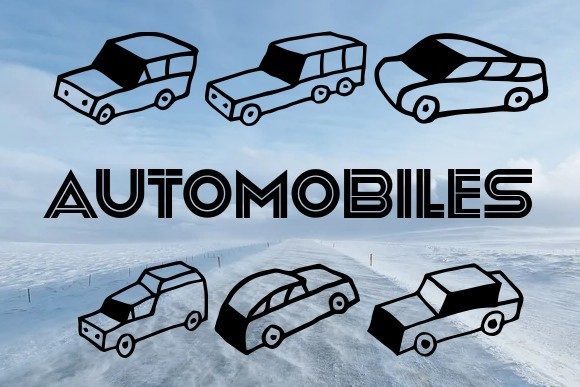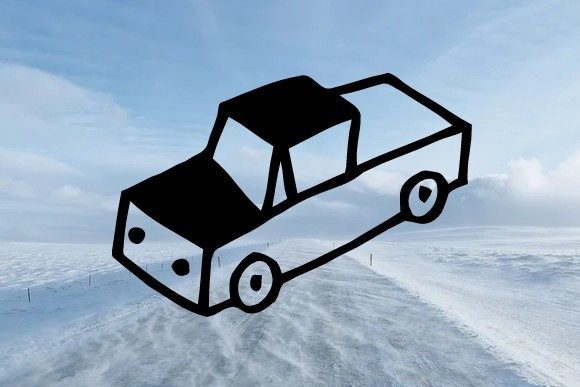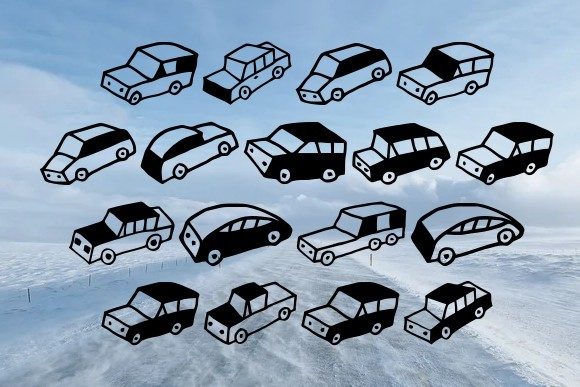
About Automobiles Font
“Automobiles” is a fantastic dingbats font that adds a fun and playful touch to creative projects related to cars, games, toys, or children in general. With its unique collection of glyphs featuring various automobile-related icons, this font is a perfect choice to enhance your designs.
When it comes to car-related projects, “Automobiles” can add a whimsical and decorative element to your designs. Whether you’re creating posters, banners, or advertisements for an automotive event or car dealership, this font allows you to incorporate fun and eye-catching car icons that instantly convey the theme and capture attention. The playful nature of “Automobiles” appeals to both children and car enthusiasts alike.
In the realm of games and toys, “Automobiles” can be a valuable asset. Whether you’re designing board games, card games, or video game graphics, this font offers a wide range of car icons that can be used as game pieces, symbols, or decorative elements. The inclusion of “Automobiles” in your game design adds a visually engaging and thematic element that enhances the overall gaming experience.
For children’s projects, “Automobiles” brings a sense of joy and excitement. Whether you’re designing children’s books, educational materials, or activity sheets, this font allows you to incorporate playful car icons that engage young readers and learners. The fun and whimsical nature of “Automobiles” make it a perfect choice for capturing children’s attention and sparking their imagination.
Moreover, “Automobiles” can be utilized in various design contexts beyond the specific themes mentioned. Its unique car icons can be incorporated into logos, branding materials, or even as decorative elements in packaging design. The versatility of “Automobiles” opens up countless possibilities to infuse a touch of creativity and fun into a wide range of projects.
In summary, “Automobiles” is a cool dingbats font that adds a playful and creative flair to projects related to cars, games, toys, or children in general. Whether you’re designing for automotive events, creating games and toys, or engaging young audiences, this font offers a diverse collection of car icons to enhance your designs. Embrace the fun and imaginative spirit of “Automobiles” and let it drive your creative projects to new levels of excitement and enjoyment.